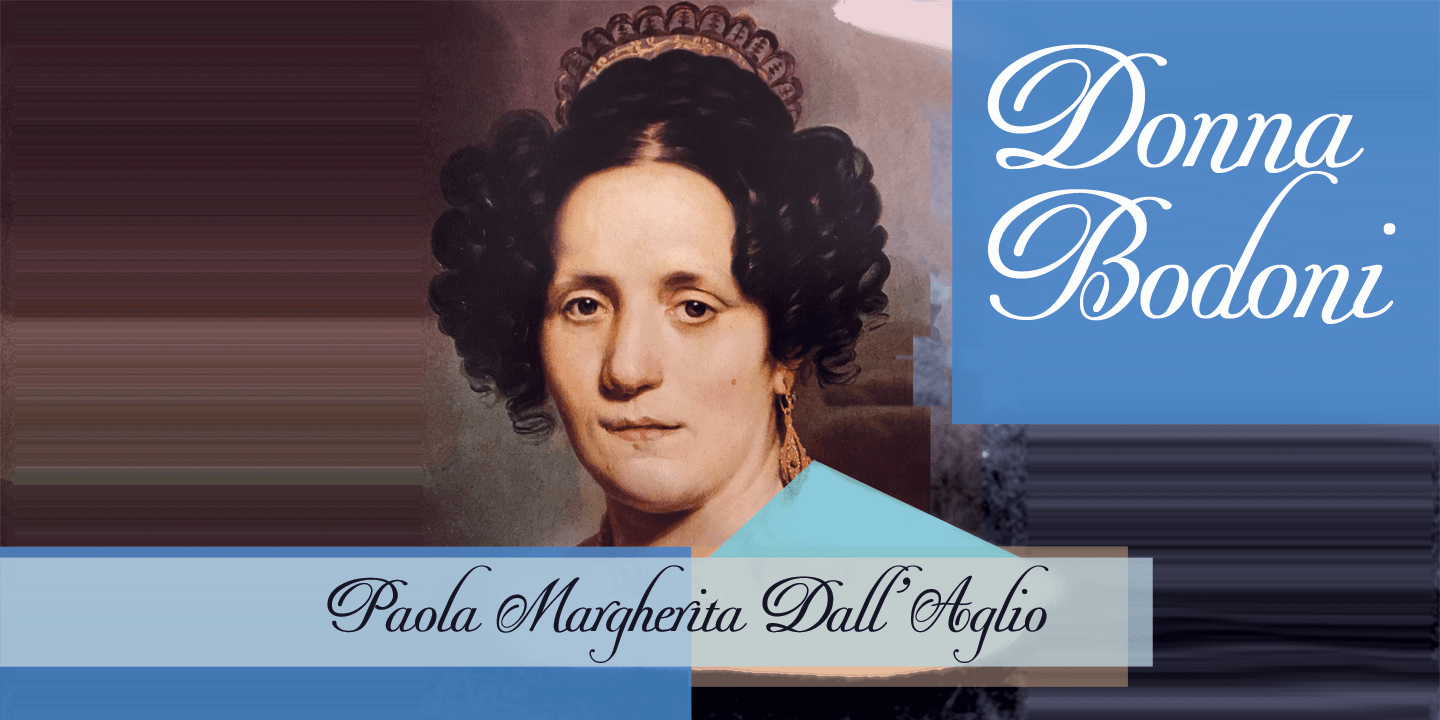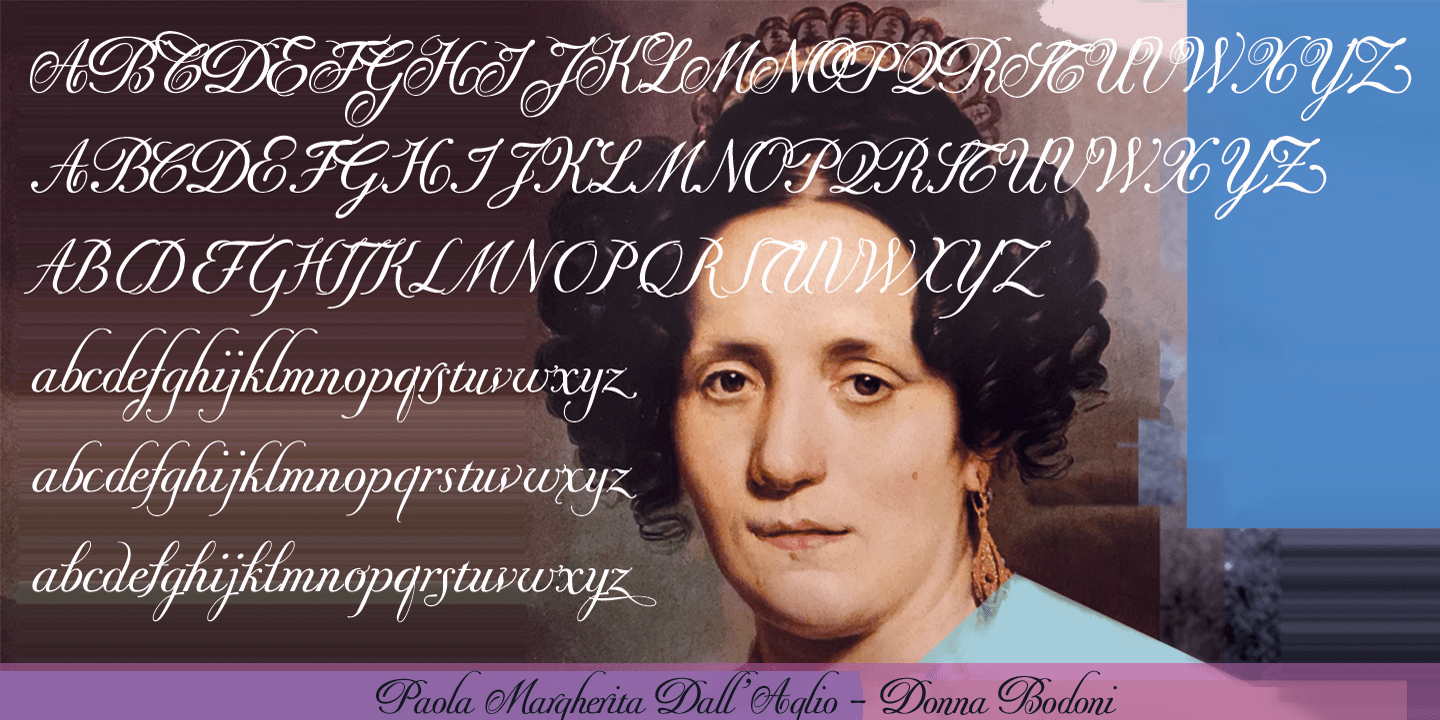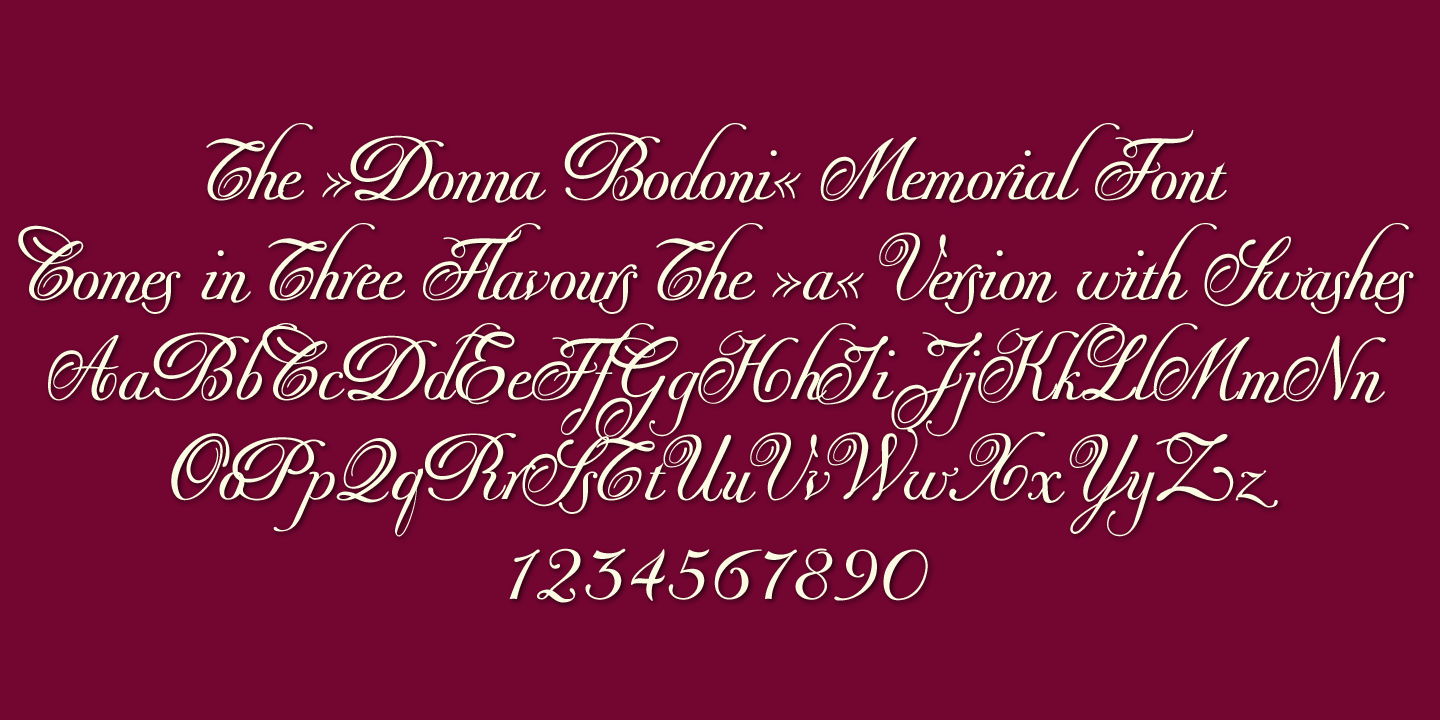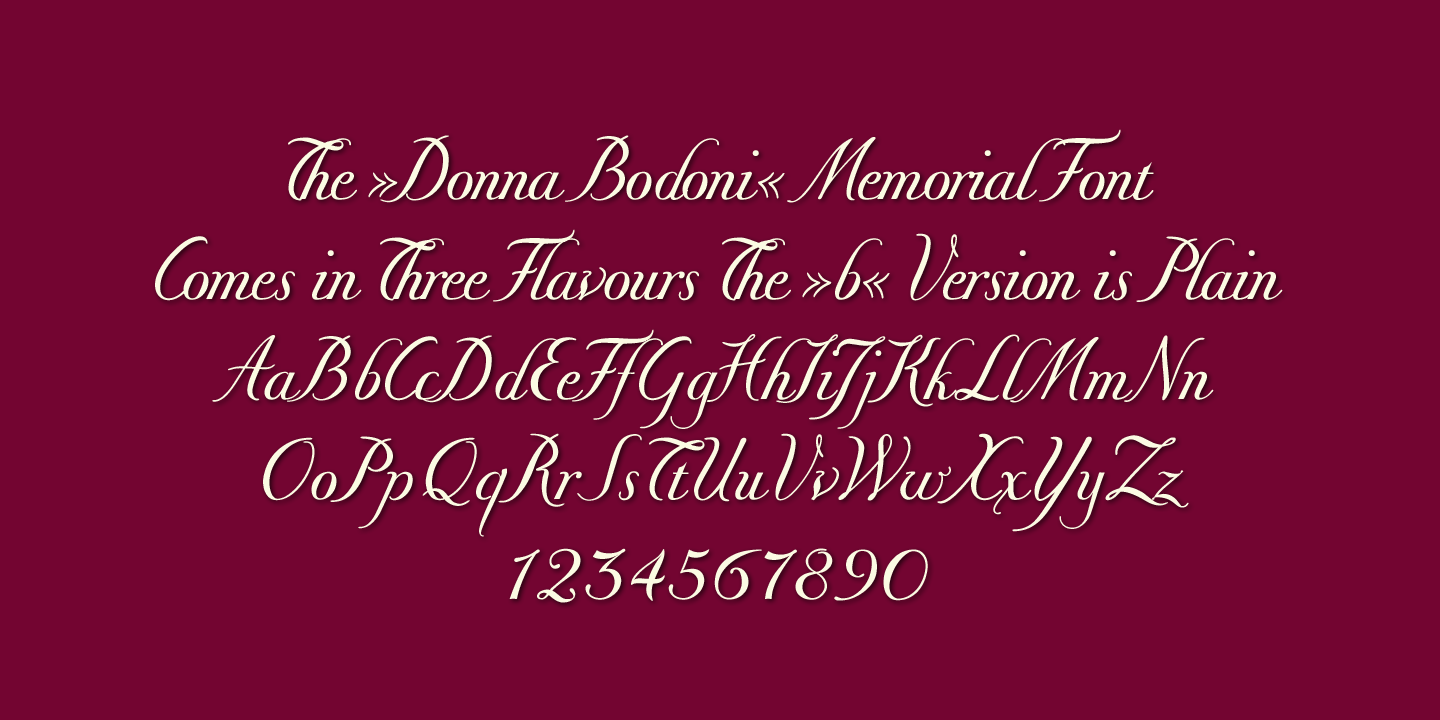
Donna Bodoni
Font Family by Wiescher Design
DonnaBodoni was inspired by David Farey.
He once wrote, somebody should honor the widow of Giambattista Bodoni the brave Signora Paola Margherita Dall 'Aglio for her effort to have the Manuale tipografico di Giambattista Bodoni published after his dead.
Since I have redesigned a good deal of Bodoni's work and added some of my own, I thought it was my duty to do at least this for Bodoni's unknown widow. Here is my 3-cut script in her honor. The design is remotely based on Bodoni's English-Initials.